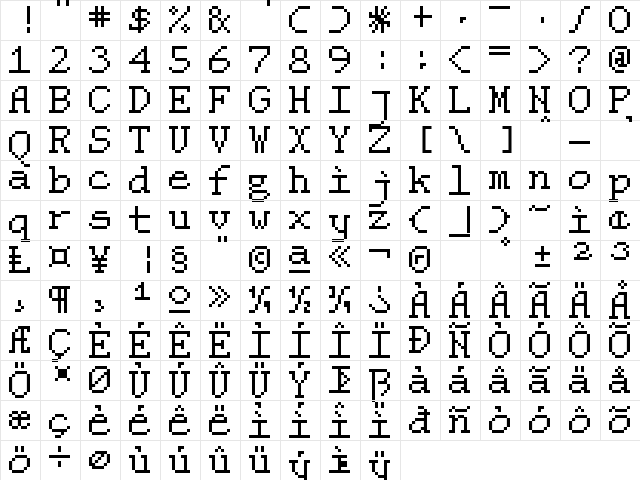
serif_v01 Regular
Design Context for serif_v01 Typeface
serif_v01 brings classic typographic sensibility to the table — its serifs and measured letterforms reflect centuries of print heritage.
Pro Tip: Set serif_v01 with slightly loose tracking in headlines to let each letterform's detail read clearly at display sizes.